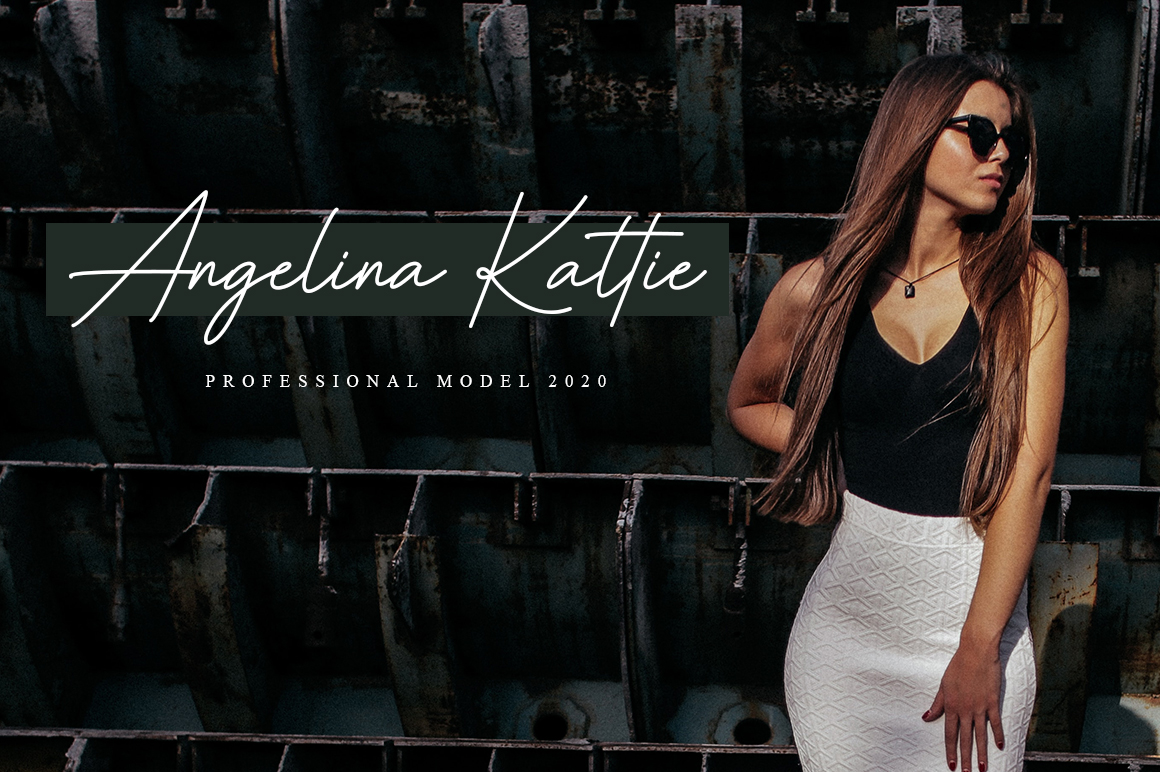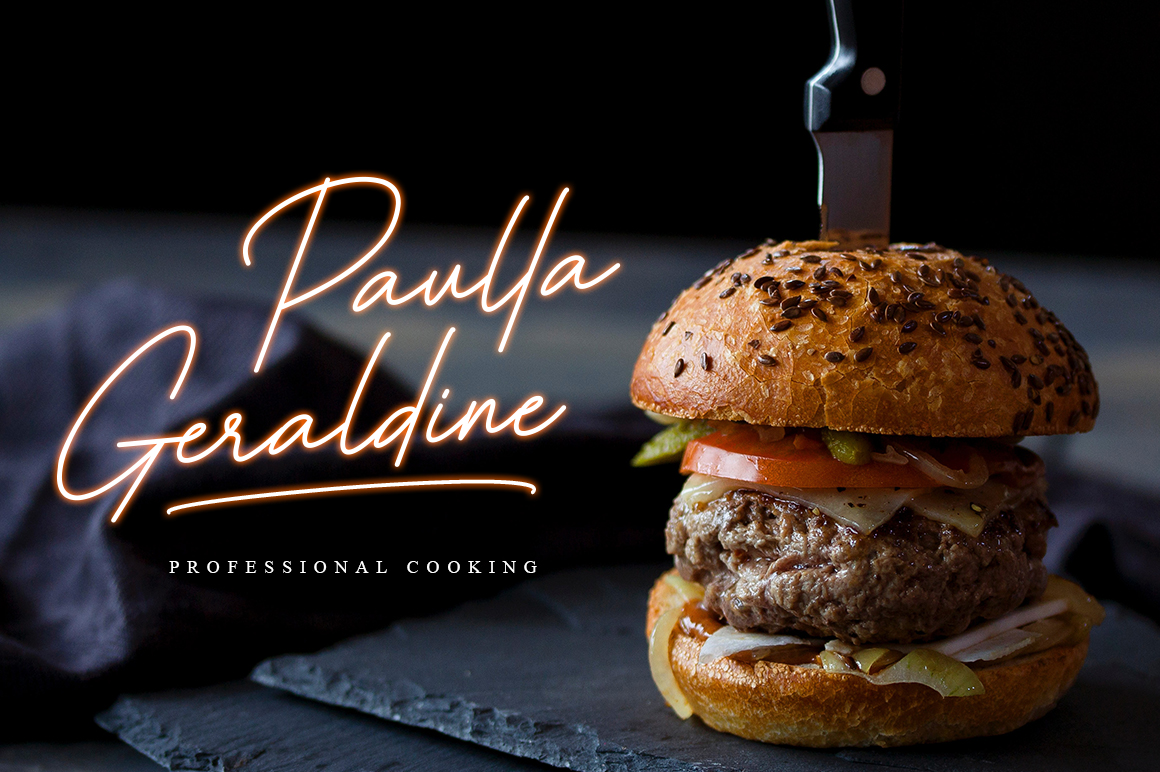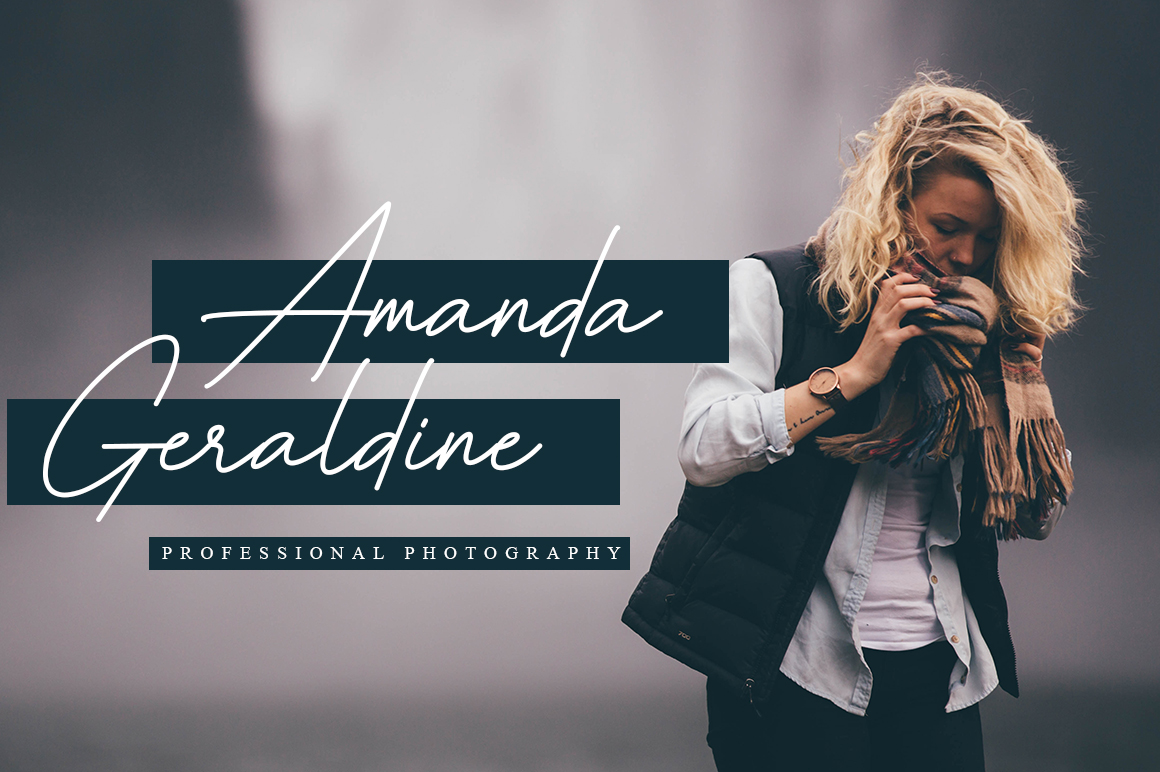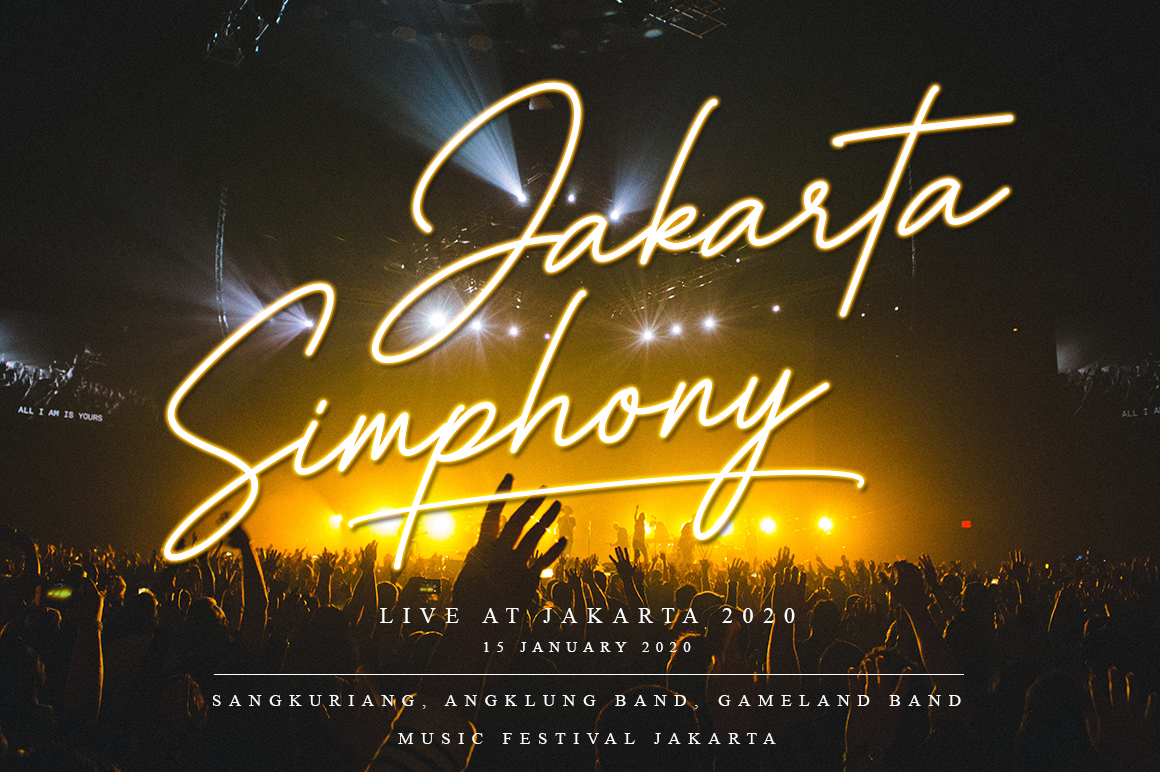
Elliana Samantha Free Font
Elliana Samantha Free Font is our newest product called Elliana Samantha. Elliana Samantha is a stunning signature font with a cool twist. Get inspired by its modern simplicity. This free typeface was designed by a talented Bluestype Studio. If you like it don’t forget to check out the full version.